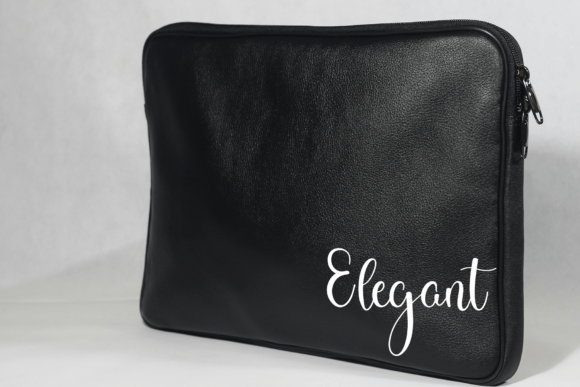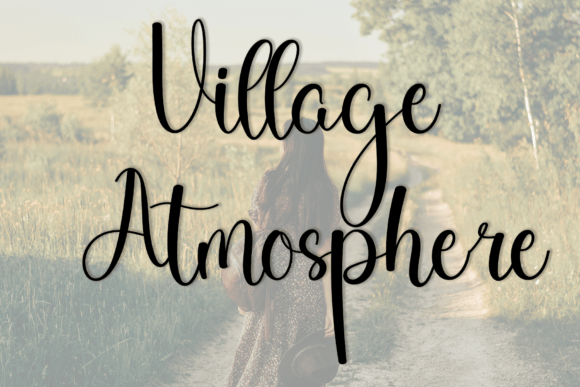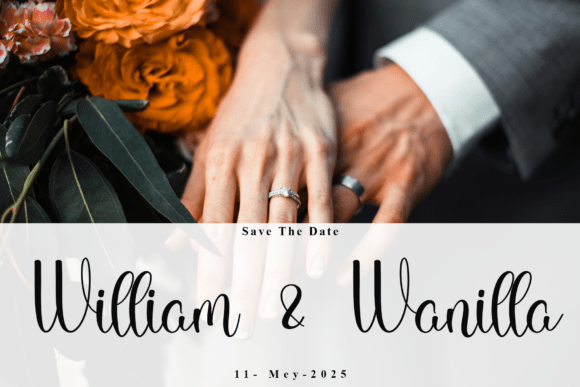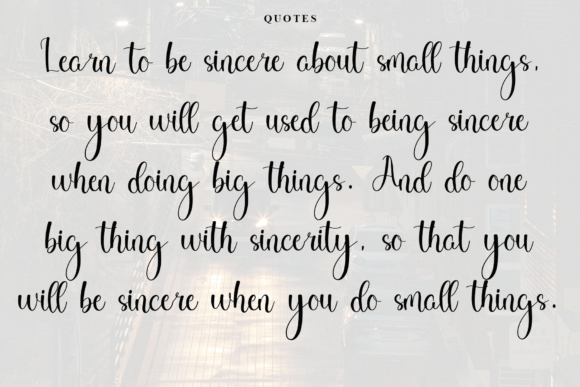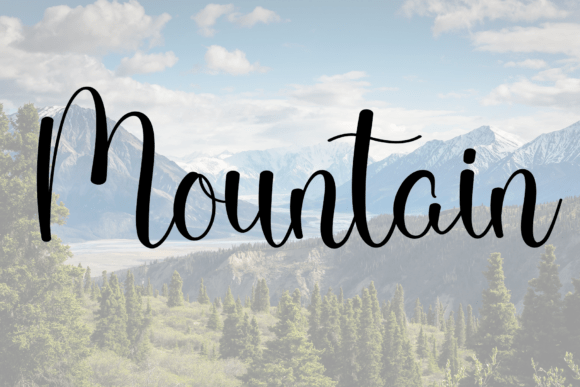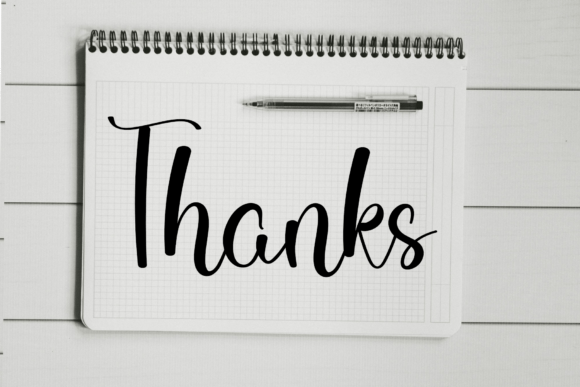
Introduction to Hometown Font
Hometown is a trendy handwritten font with a contemporary atmosphere and impeccable form, inspired by timeless classic calligraphy.
It will add elegance and class to any of your design projects .
Key Features of Hometown Font